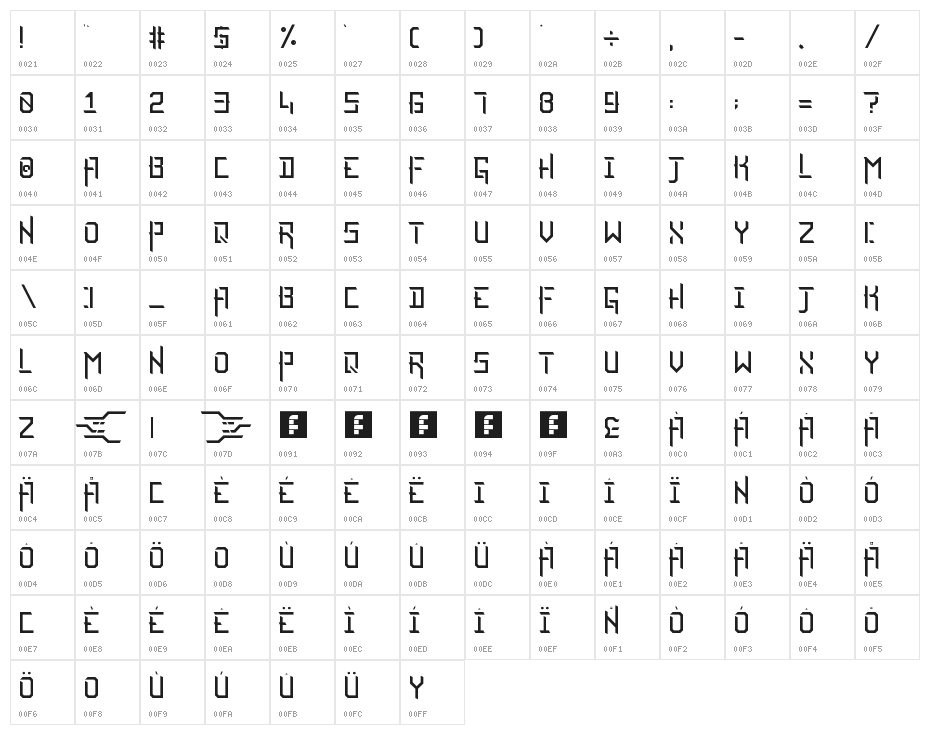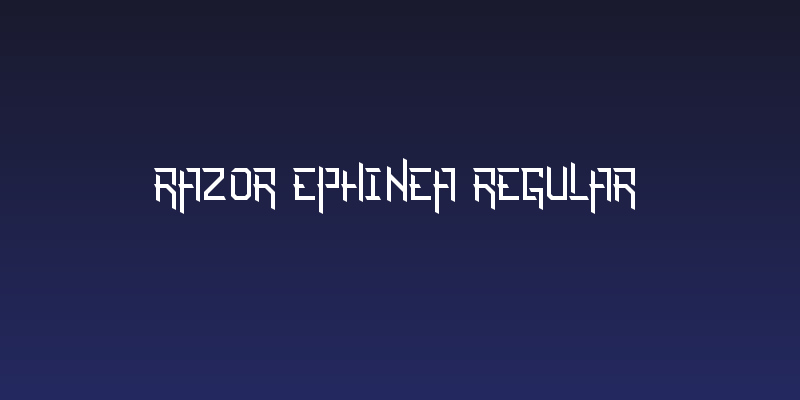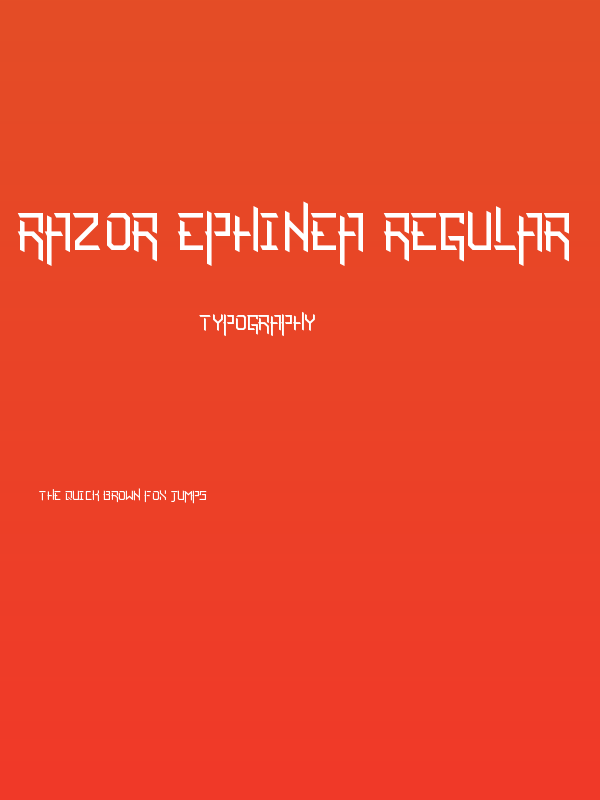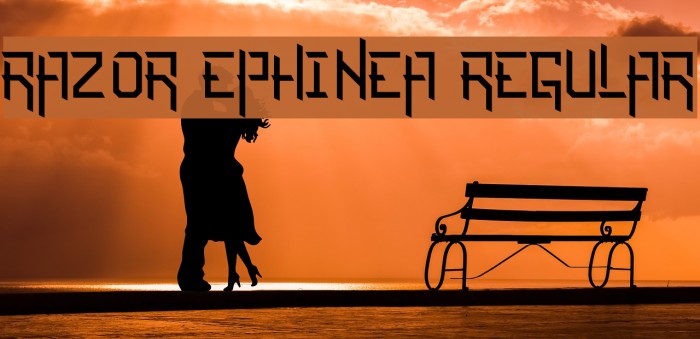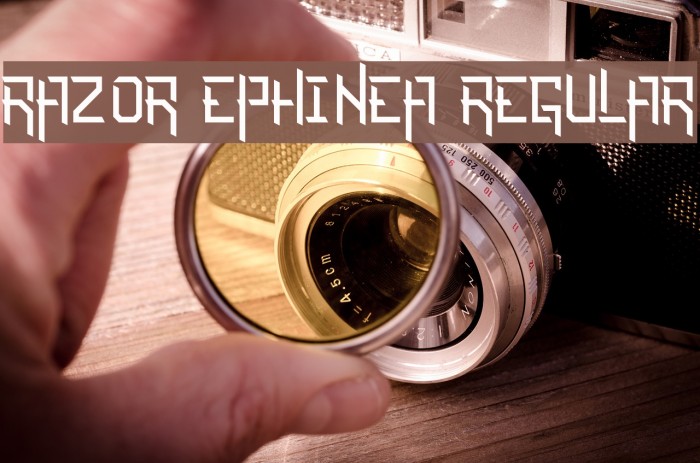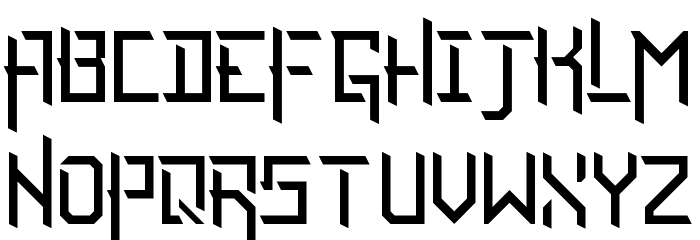
Razor Ephinea Regular Font
Razor Ephinea Regular Description
This font features a bold, angular design with sharp edges and geometric shapes, creating a futuristic and edgy appearance. The characters are constructed with straight lines and sharp angles, giving them a distinct, almost mechanical feel. The uppercase and lowercase letters maintain a consistent style, with the uppercase being slightly more pronounced. Numbers and special characters follow the same design principles, ensuring uniformity across all glyphs. The font's unique style makes it stand out, suitable for projects that require a modern and unconventional look.
| Overall Style | Futuristic, Edgy |
| Proposed Projects | Ideal for sci-fi themed projects, video game titles, tech branding, and modern posters. |